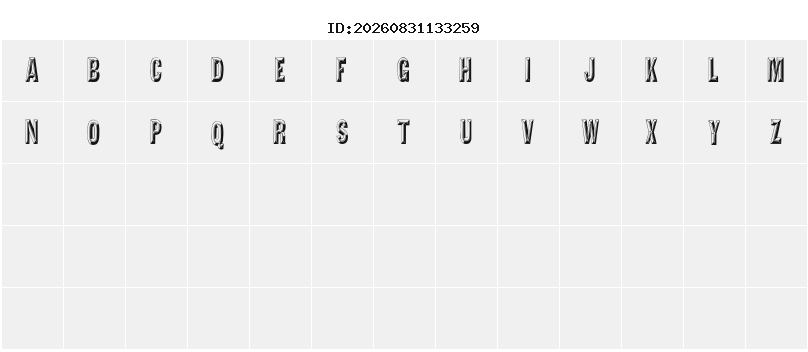
Tejaratchi Cn Preview
About Tejaratchi Cn.ttf
Tejaratchi Cn.ttf is a modern, elegant sans-serif font designed for ultimate readability and visual harmony. Perfect for branding, headlines, web design, and print materials.